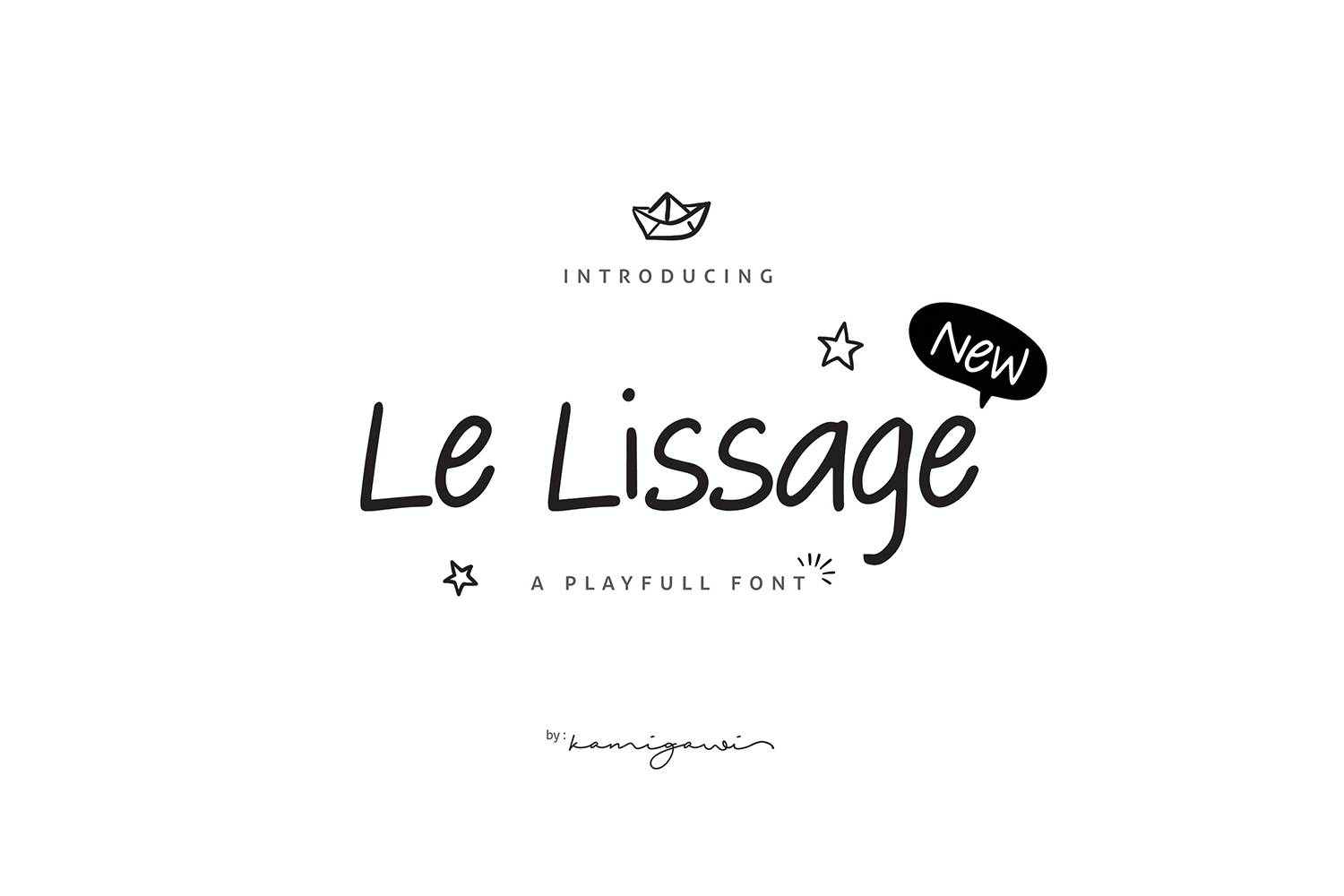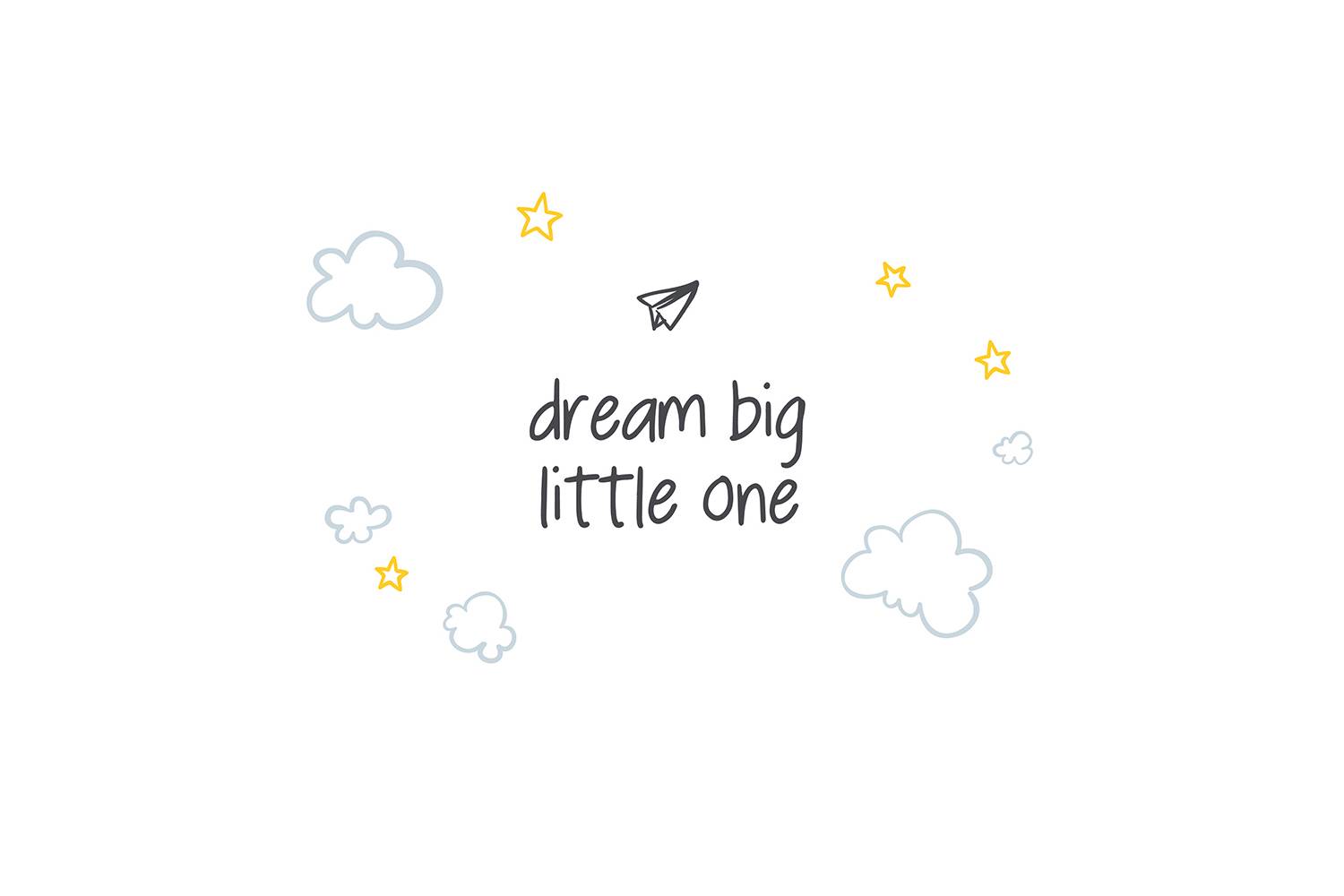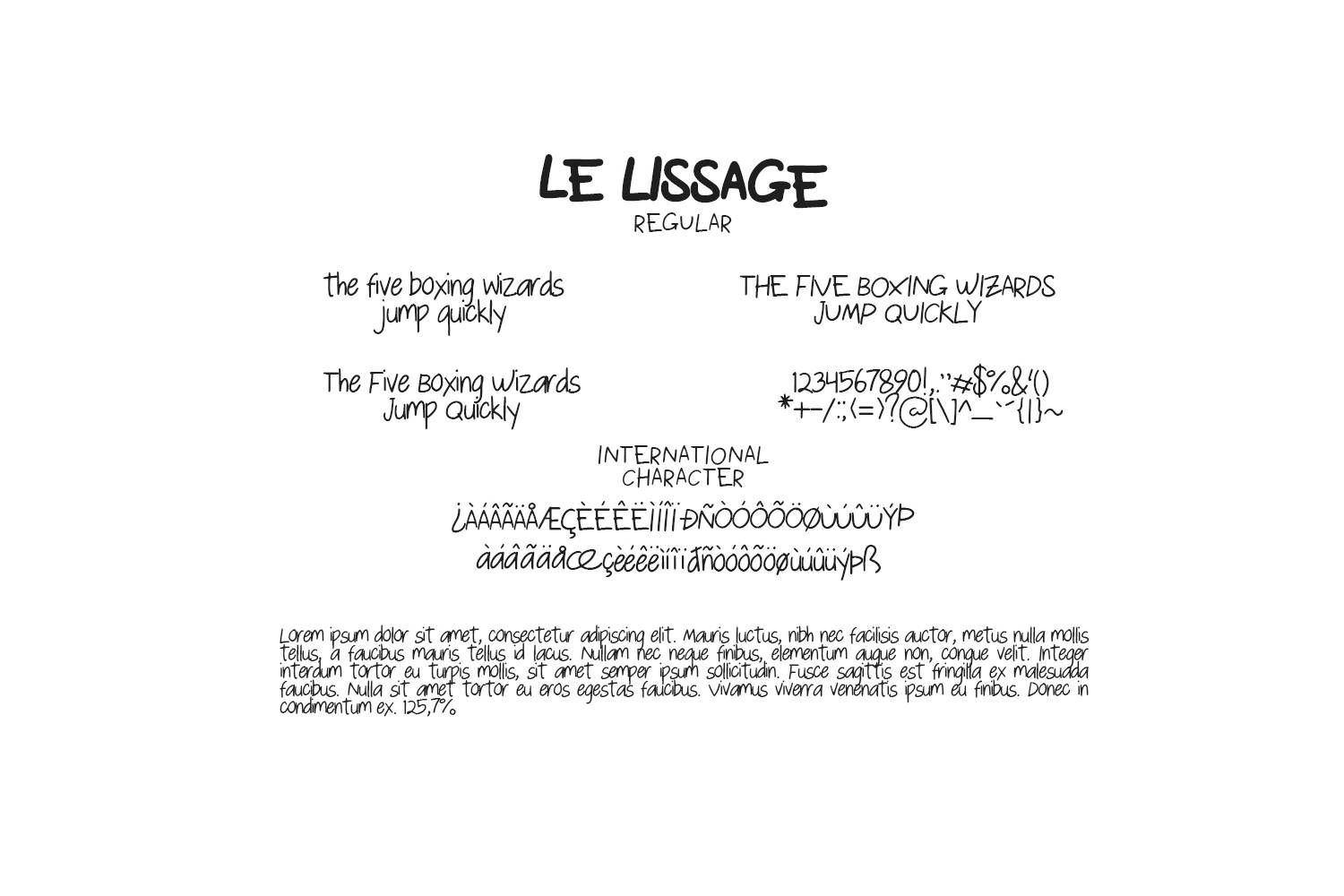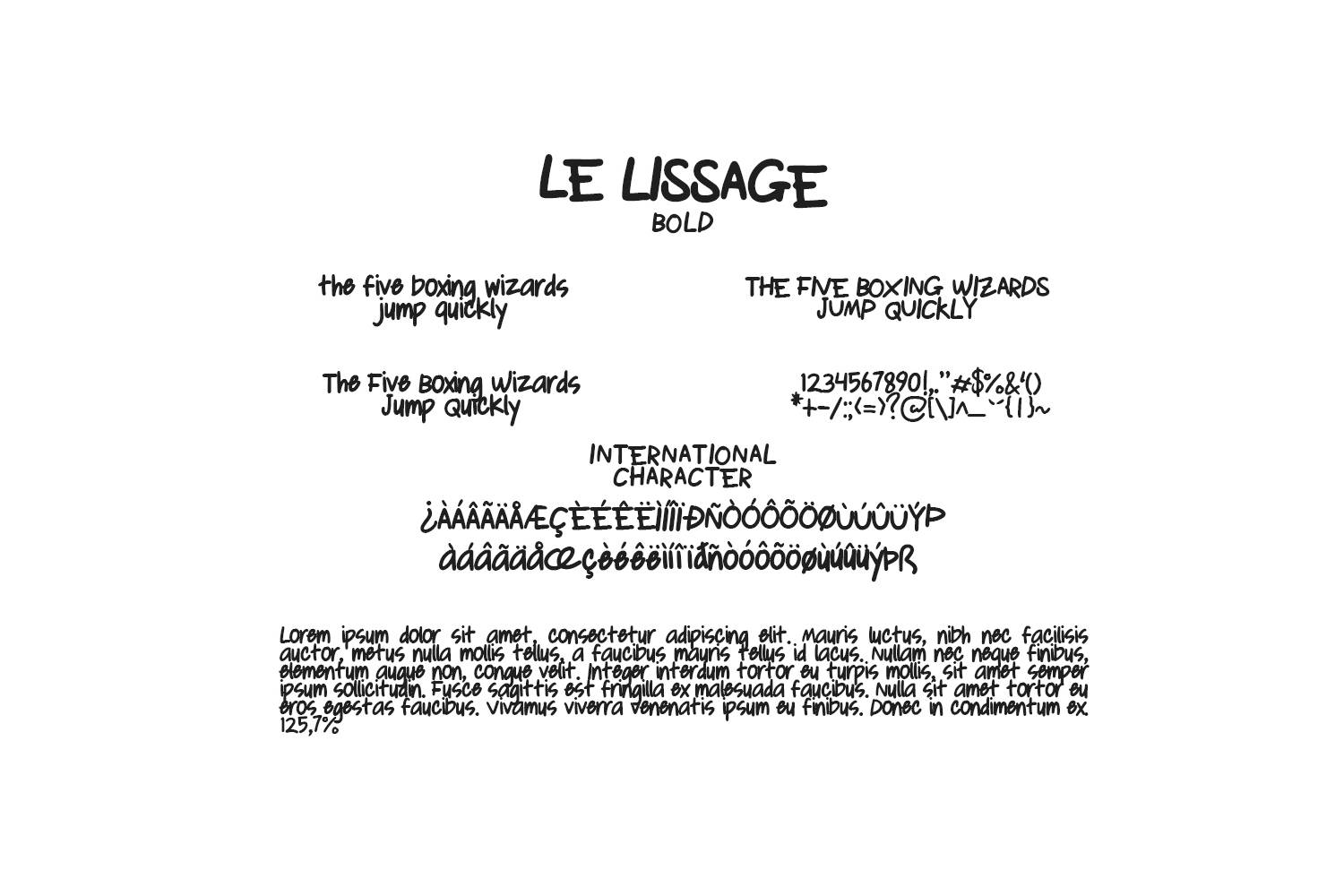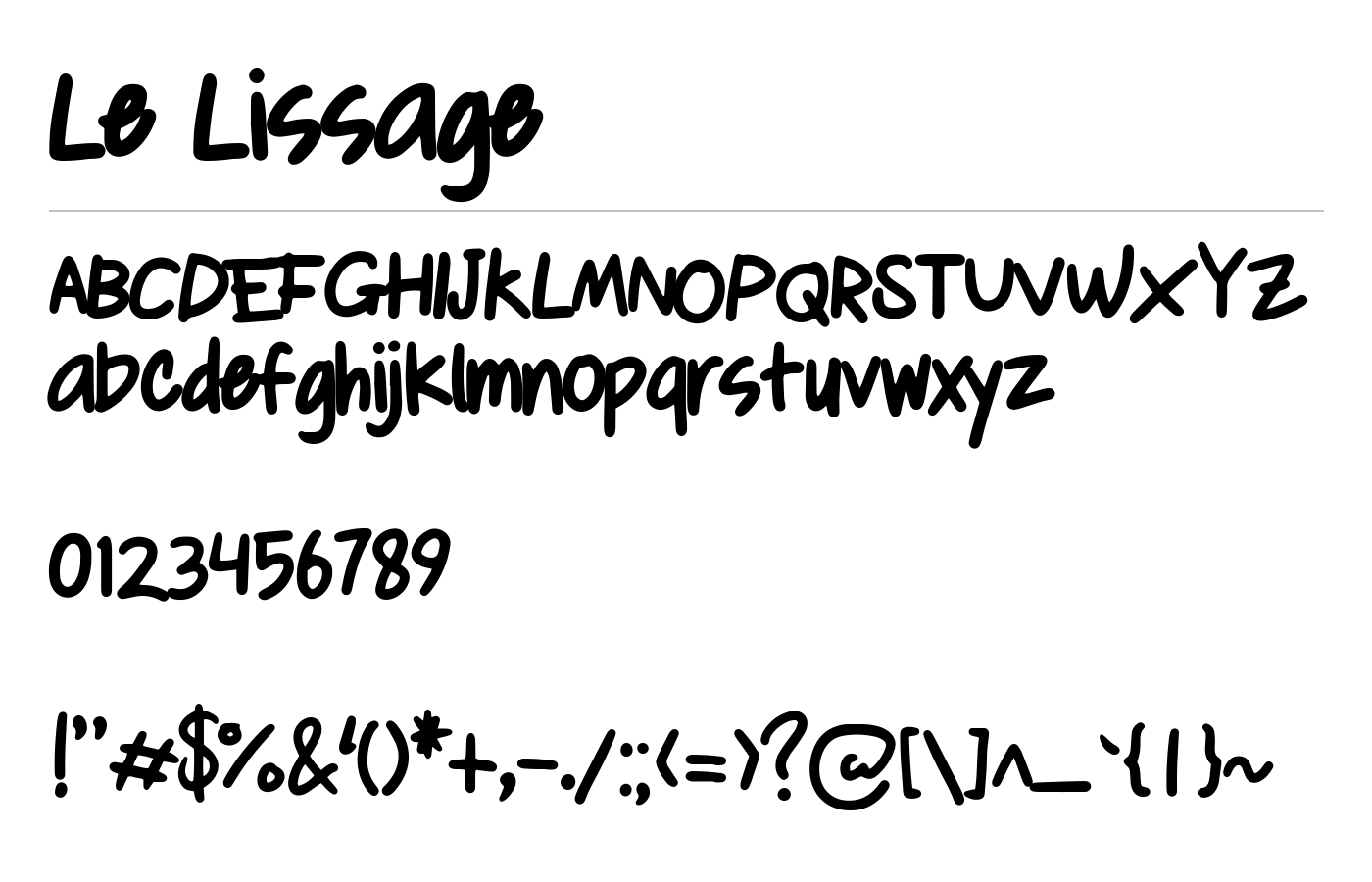
Le Lissage is a casual, handwritten sans serif font that feels playful and approachable with its rounded, smooth strokes and moderate weight. Its lively letterforms, featuring a single-story 'a' and 'g', along with informal, slightly irregular shapes, make it perfect for friendly, creative projects and branding that aims for a personal, warm touch. This font works especially well in informal headlines, children's books, greeting cards, and creative websites where a natural, hand-drawn aesthetic is desired.
Le Lissage Font